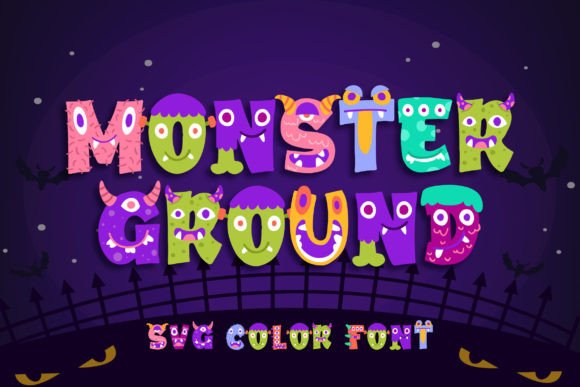
Introducing Monster Ground Font: The Ultimate Playful Typographic Solution
In the world of typography, fonts play a crucial role in making a design stand out. A well-crafted font can elevate a design from ordinary to extraordinary, conveying the intended message with style and flair. If you’re looking for a font that embodies playfulness and creativity, look no further than Monster Ground Font. This vibrant and colorful decorative font is perfect for designers seeking to add a touch of whimsy to their projects.
What is Monster Ground Font?
Monster Ground Font is a carefully crafted decorative font, designed to bring a sense of playfulness and fun to any design project. Its unique and colorful typography makes it an ideal choice for designers looking to create eye-catching and engaging visuals. Whether you’re working on a book cover, poster, packaging, merchandise, or logotype, Monster Ground Font is the perfect solution.
Key Features of Monster Ground Font
- Playful Typography: Monster Ground Font boasts a unique and playful typographic style, perfect for designs that require a touch of whimsy.
- Colorful Design: The font features a vibrant and colorful design, making it perfect for projects that require a bold and eye-catching approach.
- High Versatility: Monster Ground Font is suitable for a wide range of design projects, including book covers, posters, packaging, merchandise, logotypes, and more.
Creative Ways to Use Monster Ground Font
With its playful and colorful design, Monster Ground Font can be used in a variety of creative ways. Here are some ideas to get you started:
- Book Covers: Use Monster Ground Font to create eye-catching book covers that stand out on bookstore shelves.
- Posters and Flyers: Add a touch of playfulness to your posters and flyers with this vibrant font.
- Packaging Design: Use Monster Ground Font to create colorful and engaging packaging designs that capture the attention of potential customers.
- Merchandise: Perfect for designing fun and playful merchandise, such as t-shirts, stickers, and more.
- Logotypes and Branding: Use Monster Ground Font to create unique and memorable logotypes and branding elements.
The Benefits of Using Monster Ground Font
So why choose Monster Ground Font for your design projects? Here are just a few benefits of using this versatile font:
- Unique and Playful Design: Monster Ground Font offers a unique and playful design that sets it apart from more traditional fonts.
- High Readability: Despite its playful design, Monster Ground Font remains highly readable, making it perfect for body text and headings.
- Customizable: The font is highly customizable, allowing you to adjust the color, size, and style to suit your design needs.
- Time-Saving: With Monster Ground Font, you can save time and effort in your design projects, as it provides a quick and easy solution for creating engaging visuals.
Tips and Tricks for Using Monster Ground Font
To get the most out of Monster Ground Font, here are a few tips and tricks to keep in mind:
- Experiment with Colors: Don’t be afraid to experiment with different colors and color combinations to find the perfect look for your design.
- Mix and Match Fonts: Try pairing Monster Ground Font with other fonts to create a unique and visually appealing typographic combination.
- Adjust Font Size and Style: Experiment with different font sizes and styles to add emphasis and hierarchy to your design.
- Use it Sparingly: While Monster Ground Font is perfect for adding a touch of playfulness to your design, use it sparingly to avoid overwhelming the viewer.
In conclusion, Monster Ground Font is a versatile and playful decorative font that’s perfect for designers seeking to add a touch of whimsy to their projects. With its colorful design, high versatility, and ease of use, this font is sure to become a go-to solution for a wide range of design applications. Whether you’re working on a book cover, poster, packaging, merchandise, or logotype, Monster Ground Font is the perfect choice for creating eye-catching and engaging visuals.